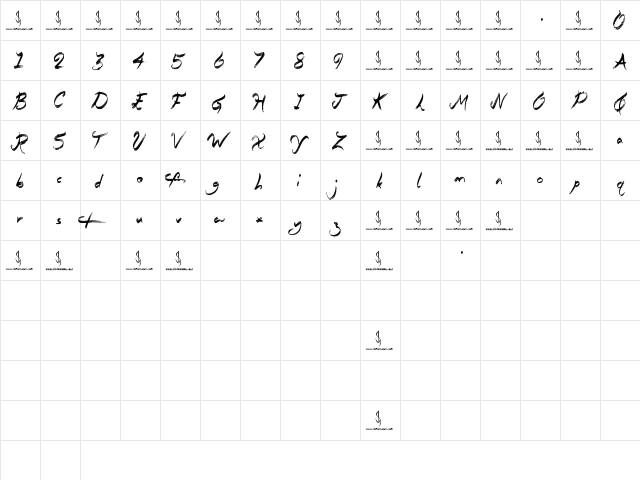
Questionary Regular
| Foundry | Jonathan S Harris |
| Designer | Jonathan Stephen Harris |
Design Context for Questionary Typeface
Questionary is a composed and adaptable typeface that performs quietly and consistently across a wide range of design contexts.